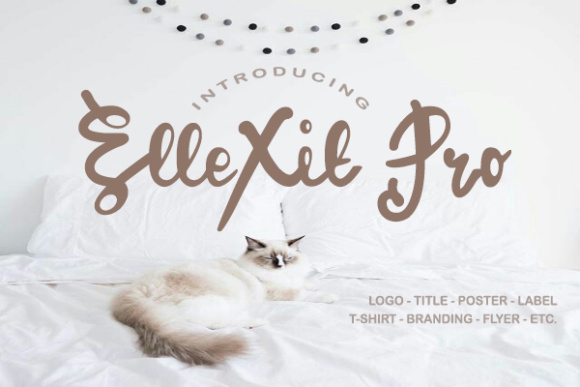
ElleXit Pro Font
About ElleXit Pro Font
ElleXit Pro is created with an unique and simple touch. ElleXit Pro gives the impression of ease in adding font designs or changing the font itself. ElleXit pro is also suitable to use in your daily life and ready to pour out your heart.